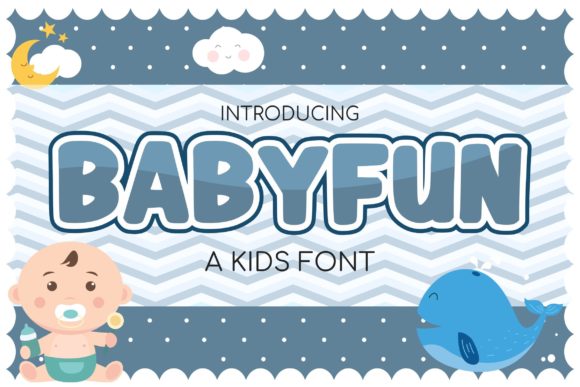
Babyfun Font
Prepare to be entranced by Babyfun, the whimsical display font that will ignite your designs with playful charm! Its bold and clear strokes dance across the page, inviting you to create captivating visual masterpieces.
Unleash your creativity with Babyfun's informal and casual style, perfect for any whimsical endeavor. Its versatility shines through in product packaging that leaps off the shelves, t-shirts that spark joy with every wear, and labels that add a touch of whimsy to your products. Posters and logos adorned with Babyfun will captivate your audience, leaving a lasting impression.
Transport your designs to a world of enchantment with Babyfun. Its unique and eye-catching appearance will transform your creations into works of art. Embrace the playful spirit of Babyfun and watch your designs blossom with charm and delight.